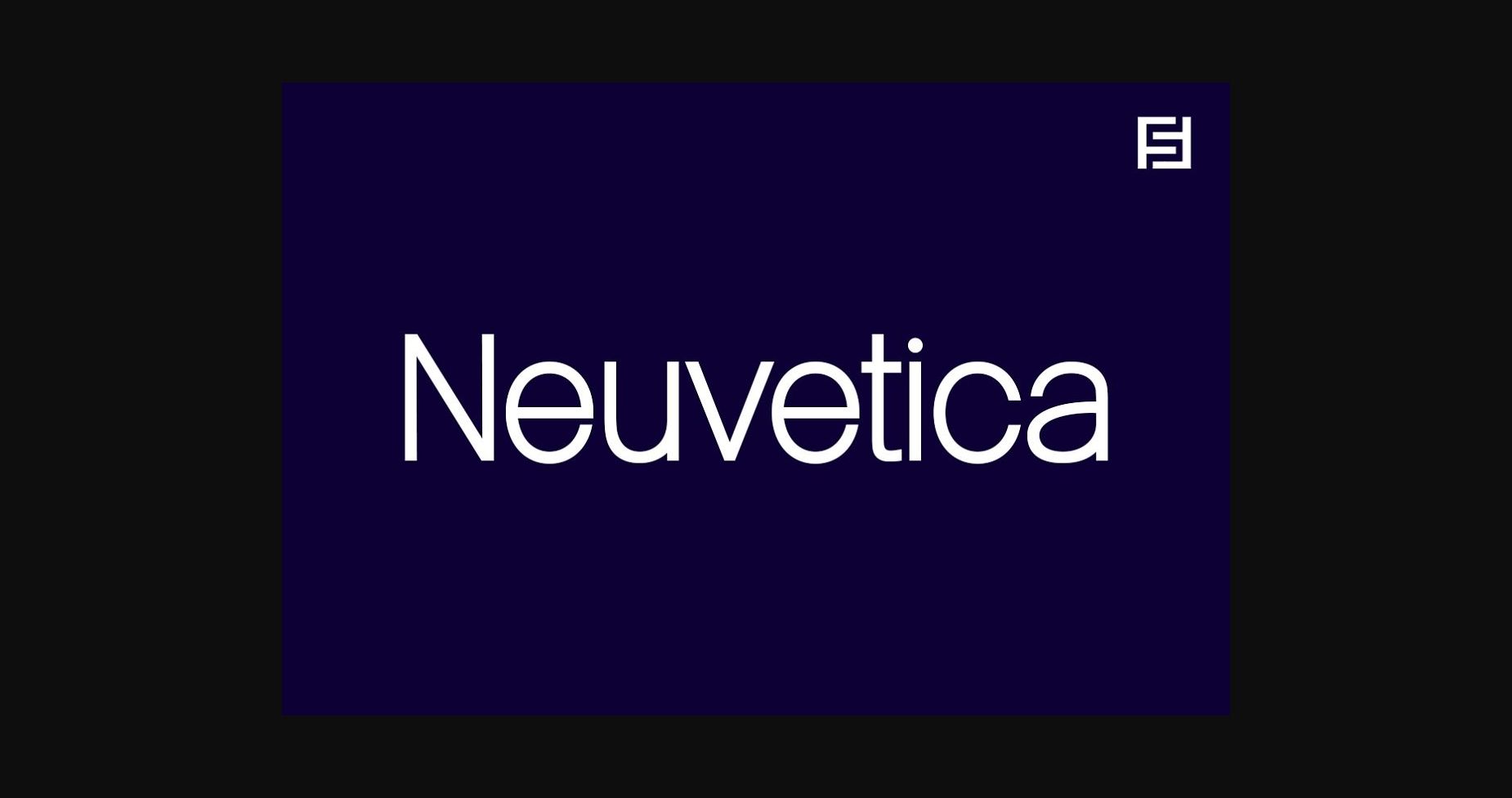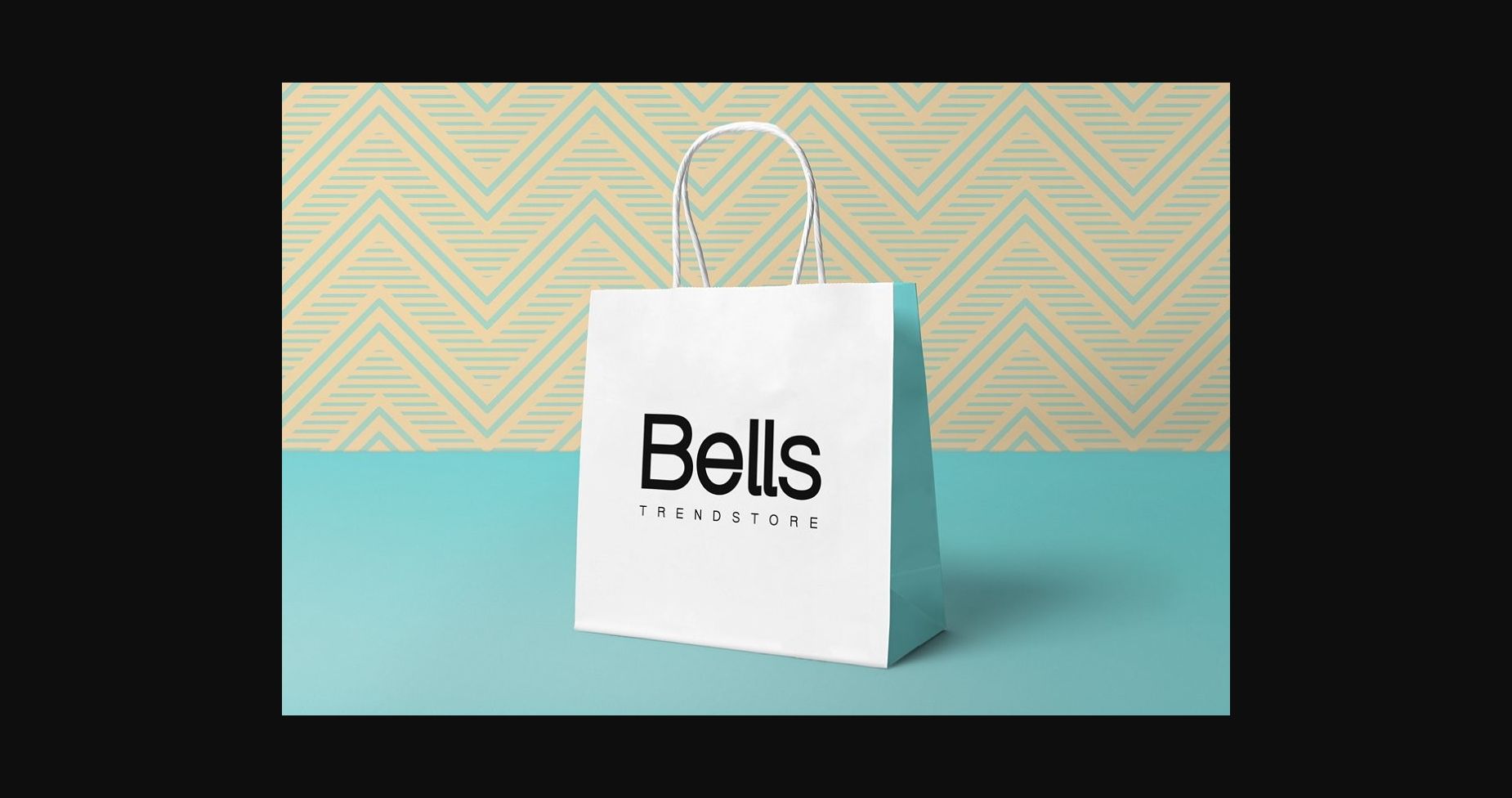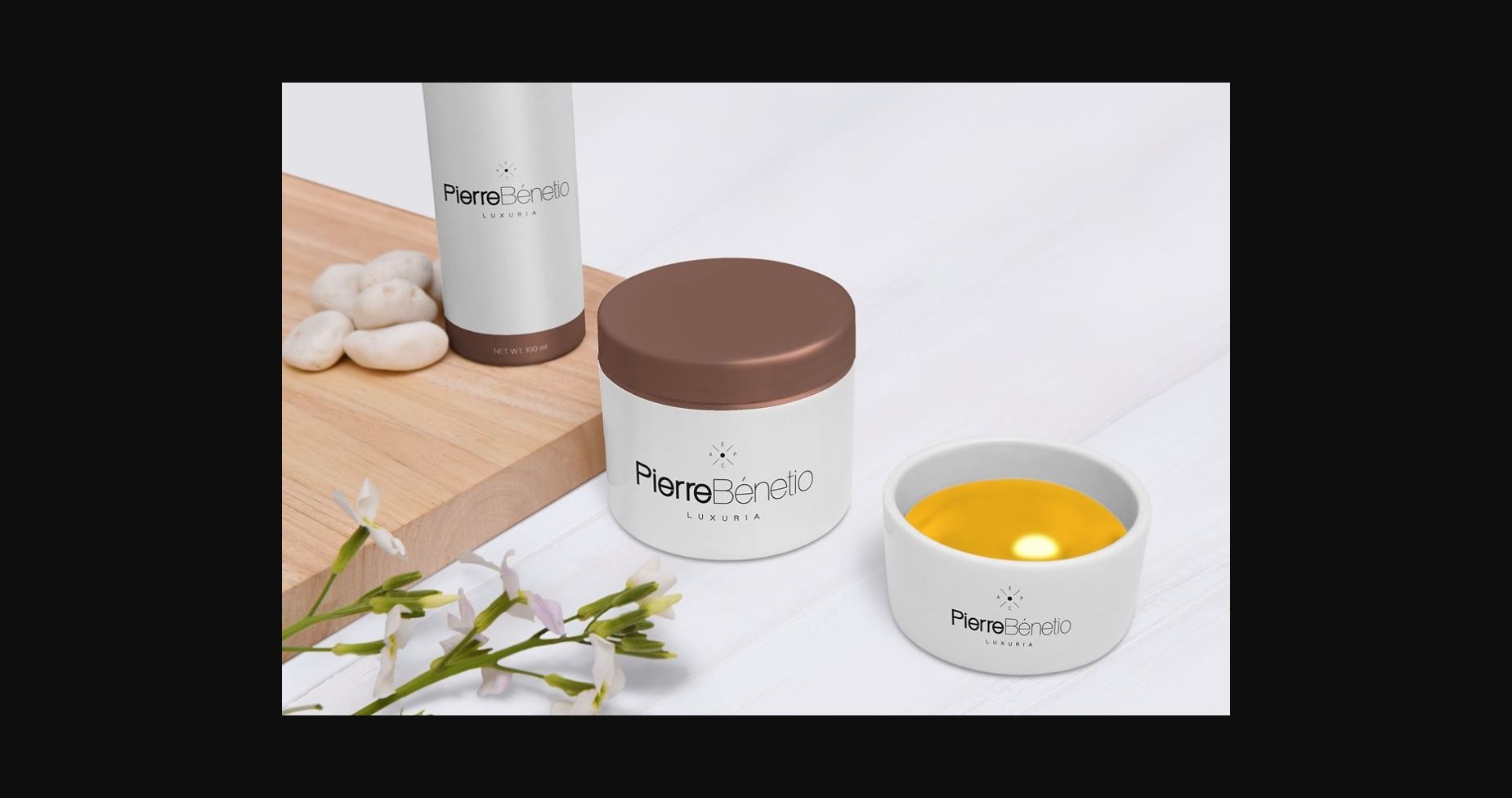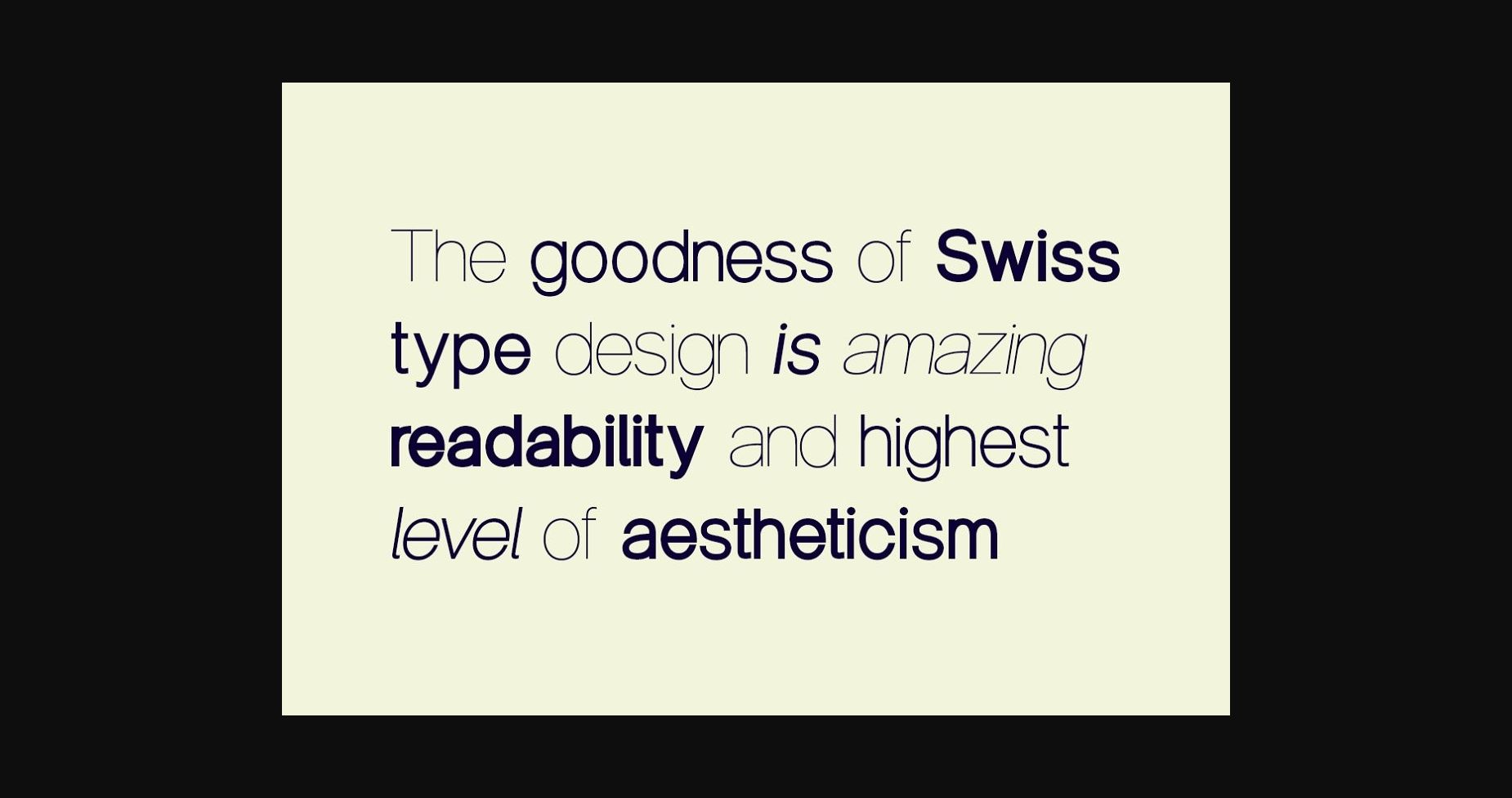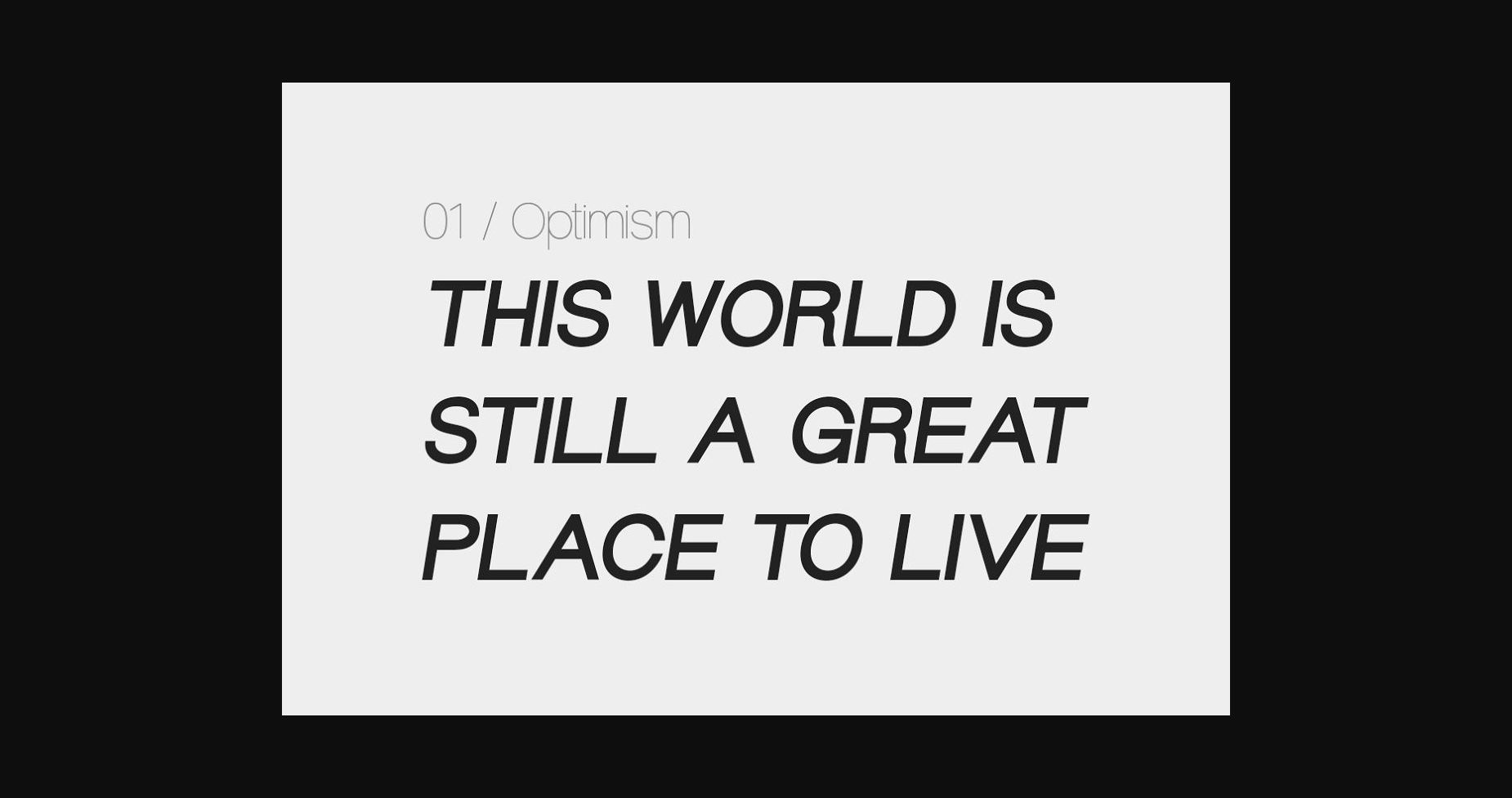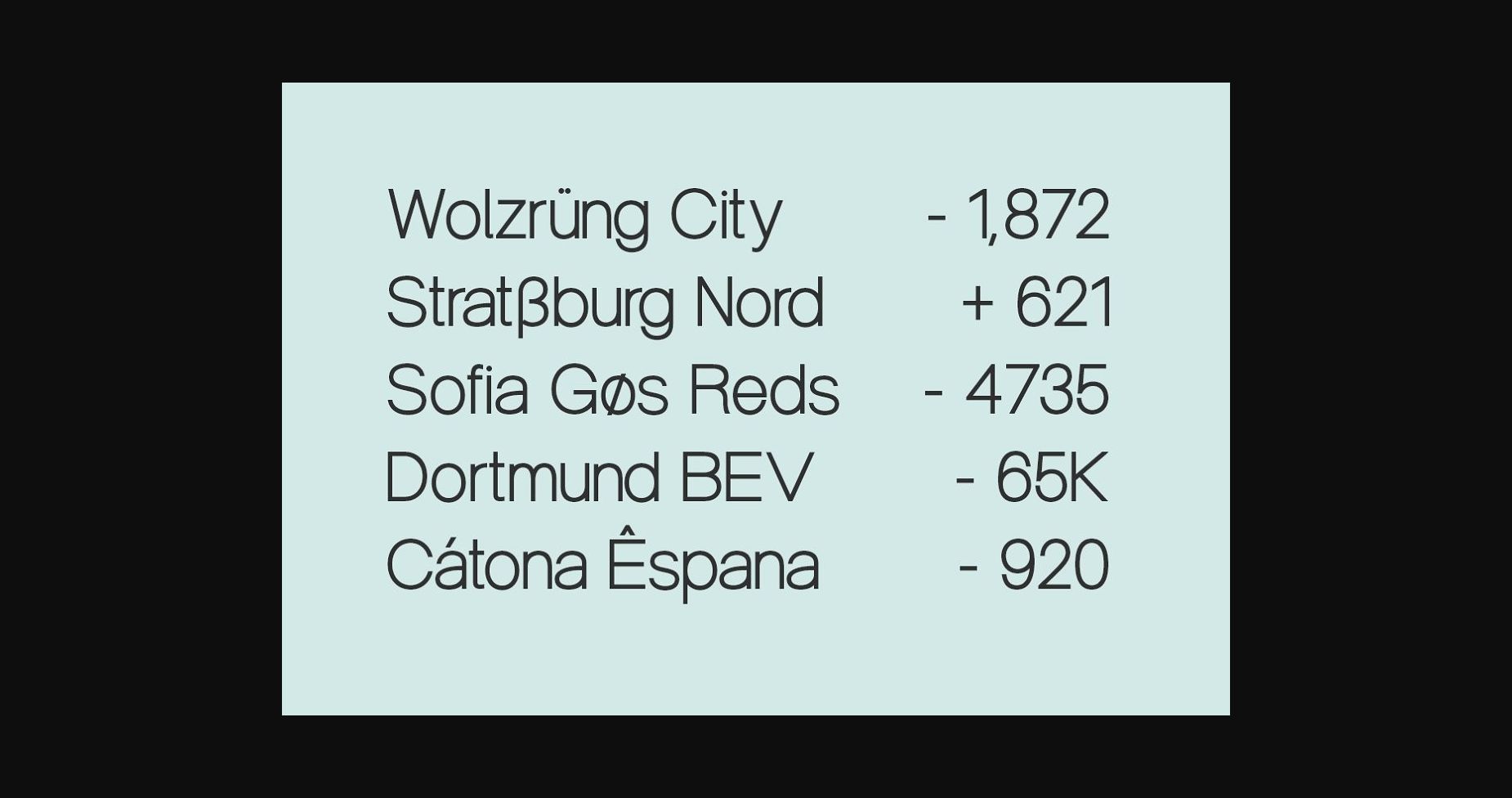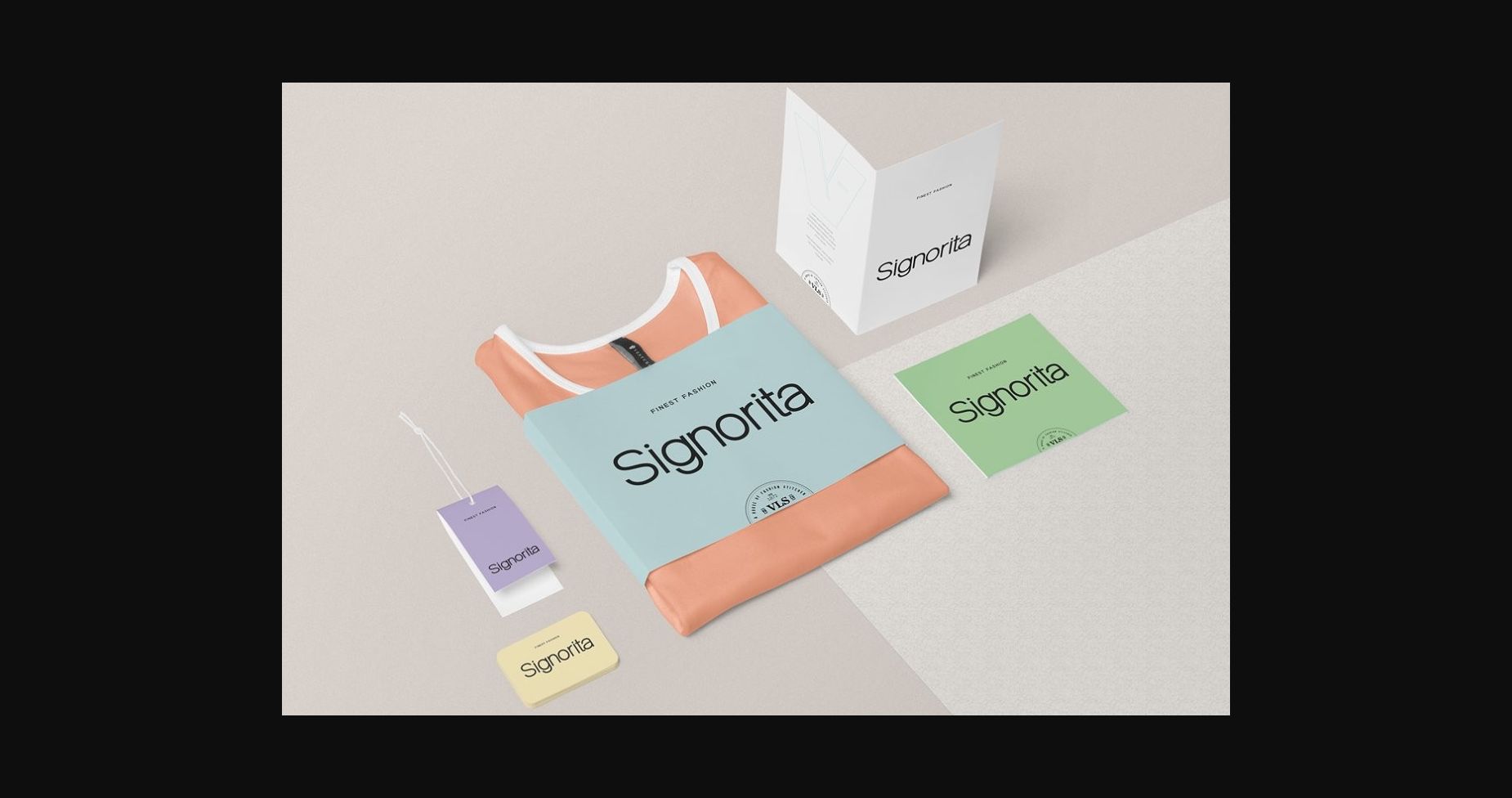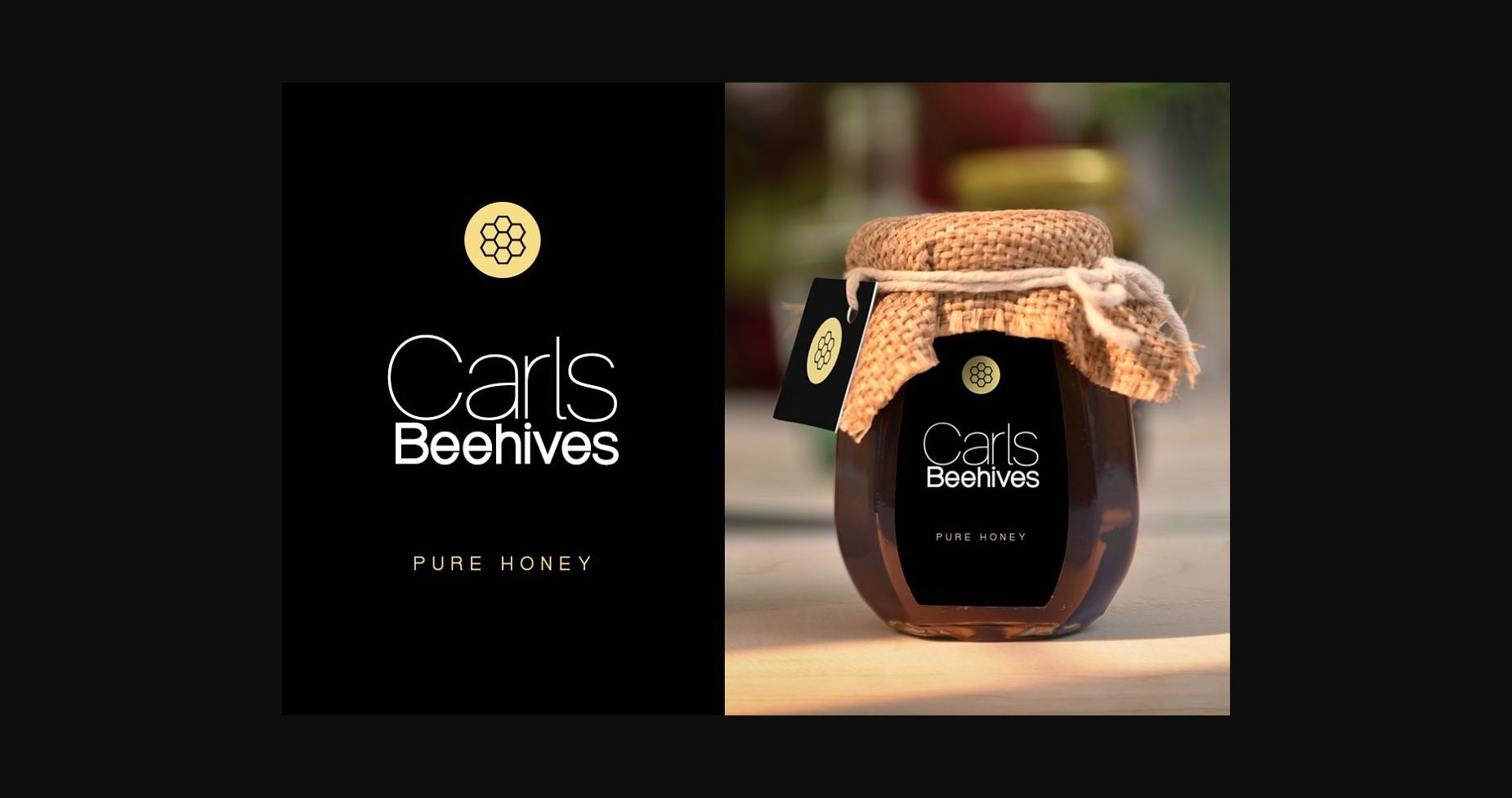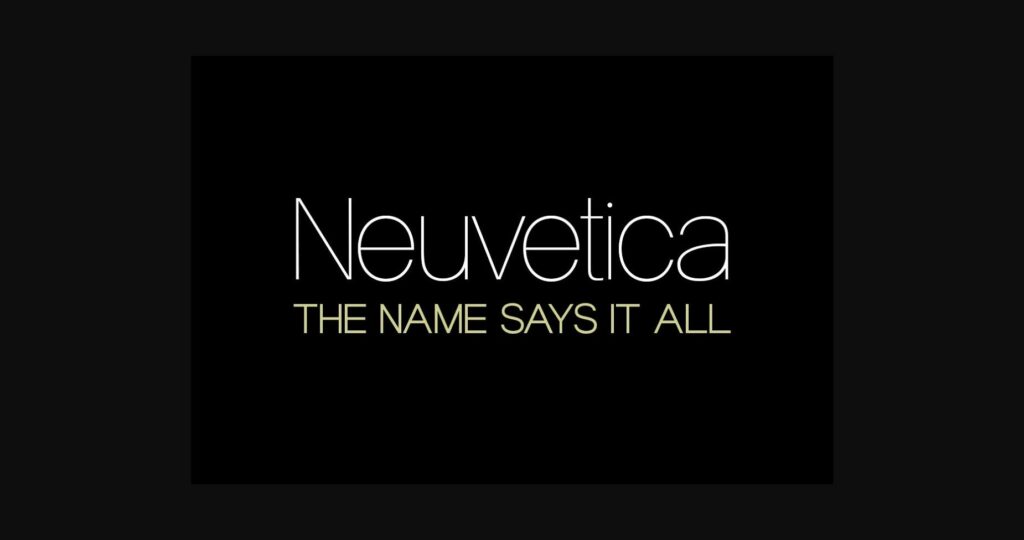
HomeSans Serif FontsNeuvetica Font Sans Serif Fonts Neuvetica Font FacebookXPinterestWhatsApp 1 of 11 ... Neuvetica Font Poster 2... Neuvetica Font Poster 3... Neuvetica Font Poster 4... Neuvetica Font Poster 5... Neuvetica Font Poster 6... Neuvetica Font Poster 7... Neuvetica Font Poster 8... Neuvetica Font Poster 9... Neuvetica Font Poster 10... Neuvetica Font Poster 11... About Neuvetica Font Neuvetica is a minimal and neat sans serif font. It can easily be matched to an incredibly large set of projects, so add it to your creative ideas and notice how it makes them stand out! DOWNLOAD NOW People also explored Signaturex Font Bohemian Script Font Elliot Font Quarantine Font Handraw Ranbegia Font Happy Saurus Font Rainboface Yuqato Font 532 0 TagsNeuvetica Font Previous articleLuxora FontNext articleClarity Nuvo Font LEAVE A REPLY Cancel reply Comment: Please enter your comment! Name:* Please enter your name here Email:* You have entered an incorrect email address! Please enter your email address here Website: Save my name, email, and website in this browser for the next time I comment. Personal Use Free Vogue Font Personal Use Free Read more about this font Sweety Blue Personal Use Free Read more about this font Vanchrome Personal Use Free Read more about this font Hashira Mt Personal Use Free Read more about this font BLOG Fonts That Capture the Spirit of New York City New York City is more than just a place—it’s an experience, a rhythm, a visual language... Modern Sans-Serif Fonts That Brands Love in 2025 Best Fonts for T-Shirt Design – Top 2025 Picks Top 7 Google Fonts Alternatives for Faster and Privacy-Friendly Web Design (2025)